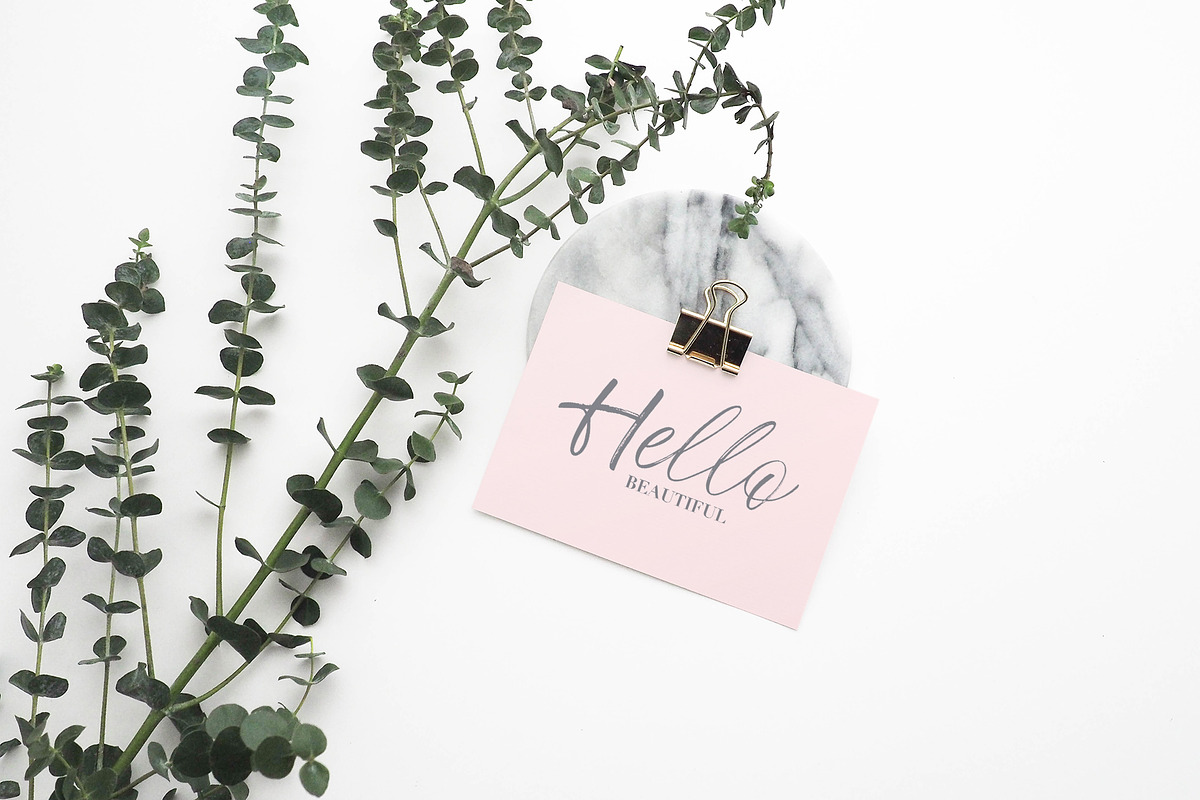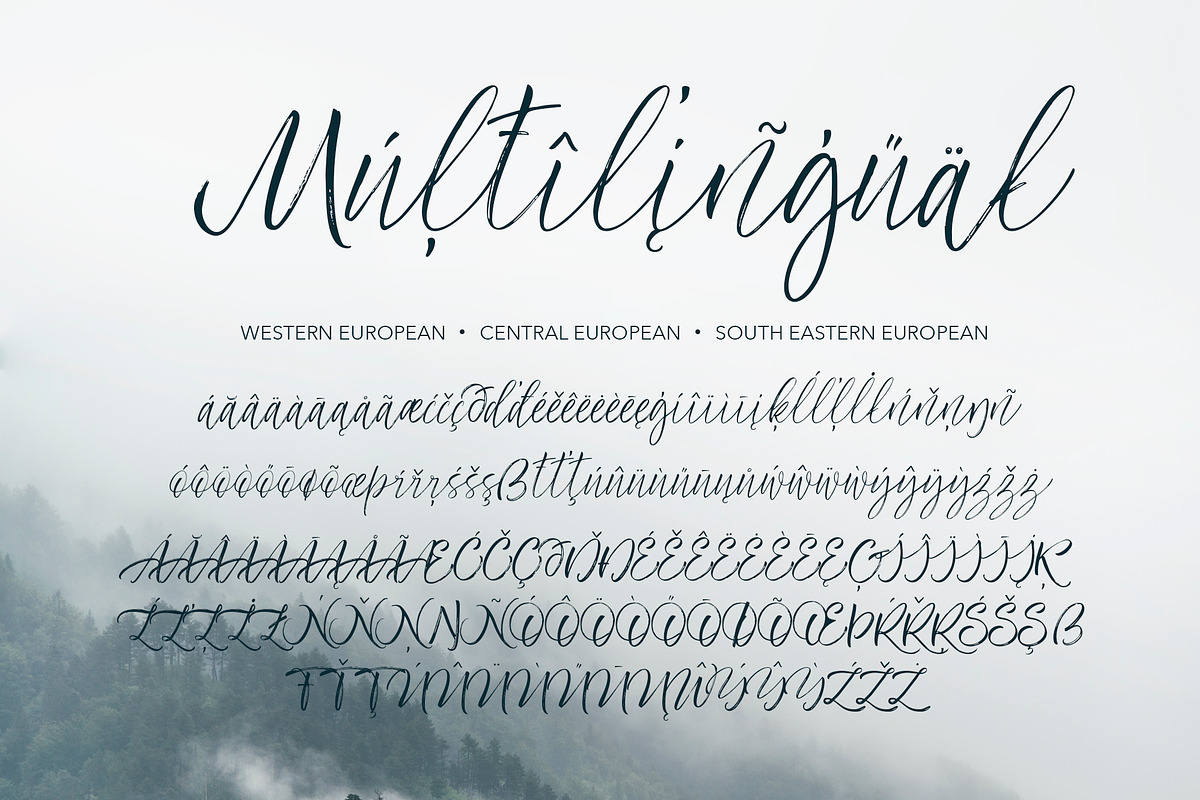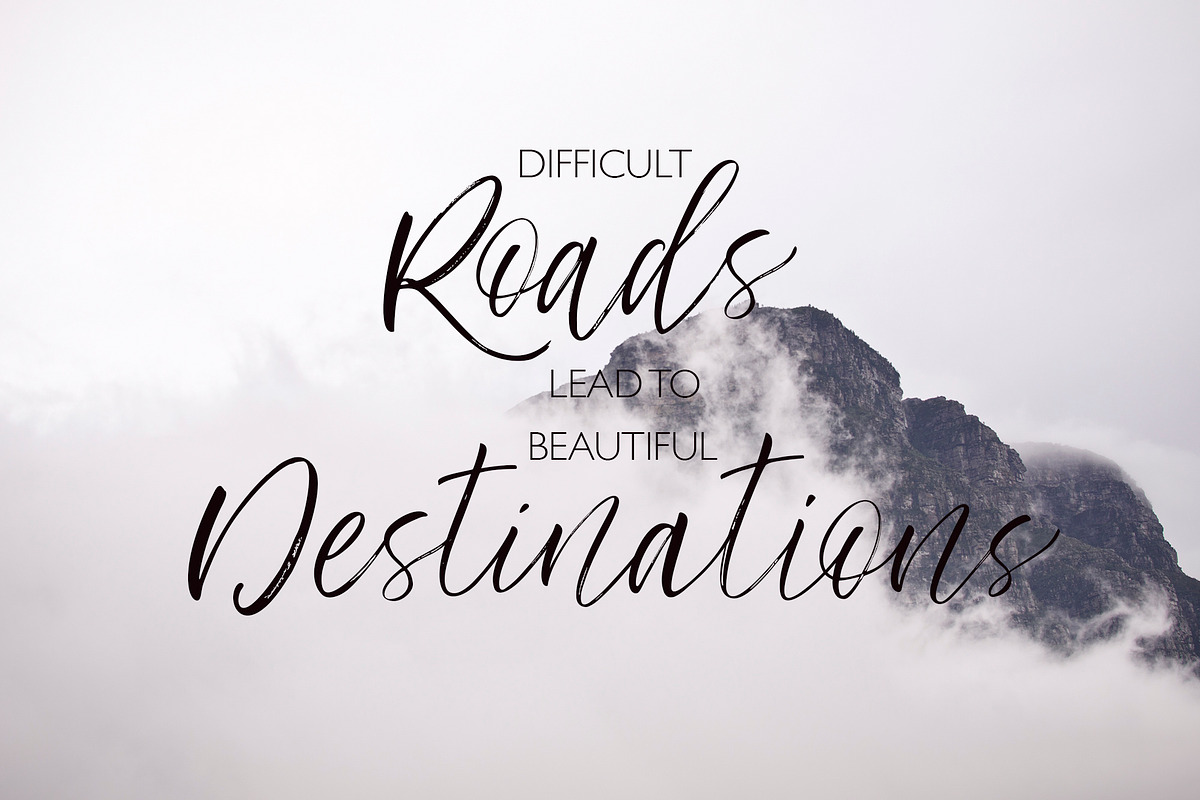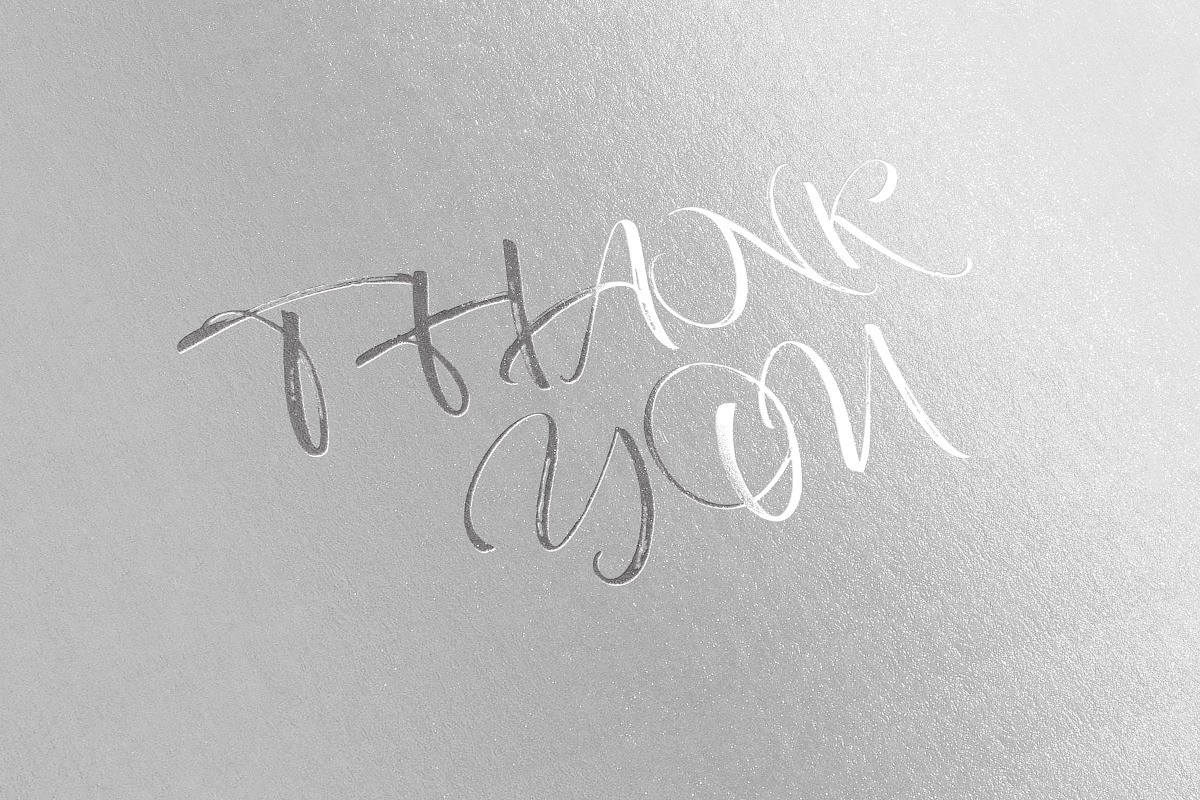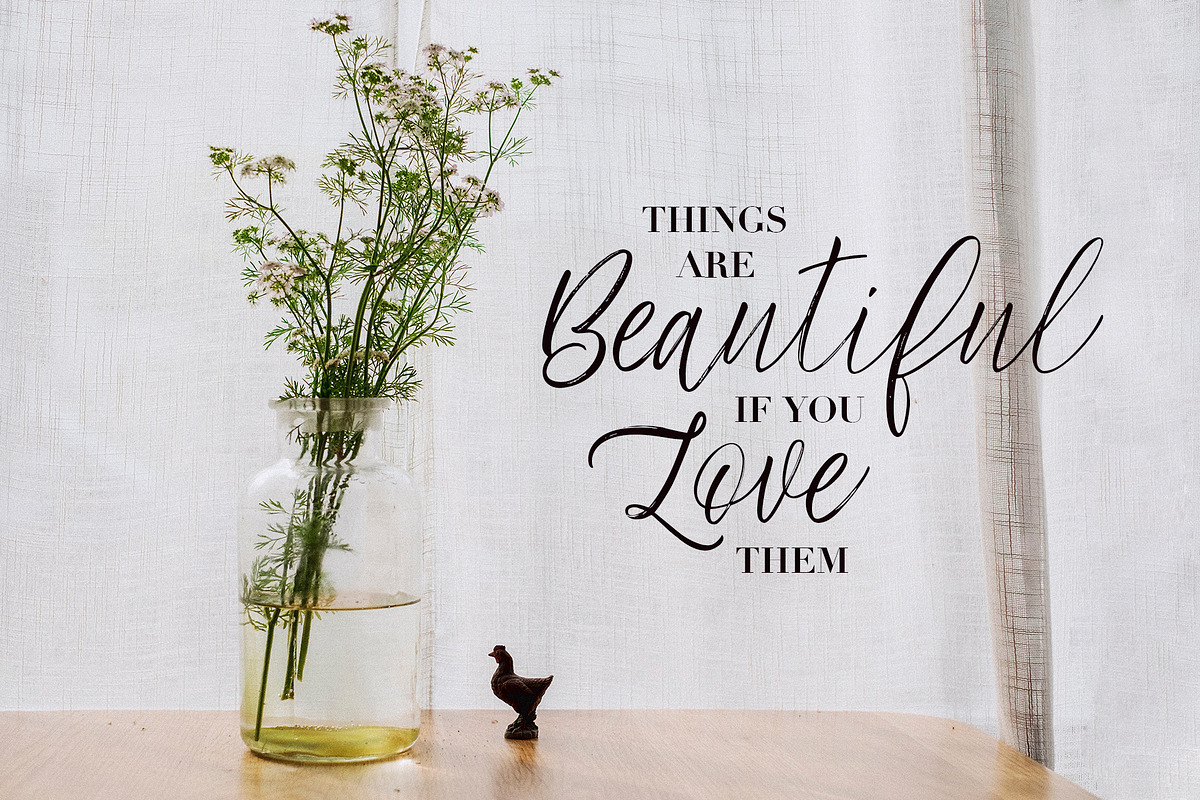
Frideswide Script
Meet new handwritten brush font - Frideswide.
Frideswide Script would be perfect for invitations, quotes, greeting cards, logos, branding, wedding and event stationery, social media overlays and much more.
Frideswide includes two sets for lowercase, and 17 ligatures (double letters) - which combined offers you a huge range of customisability and layout options. It also comes with a bonus set of 5 seamless patterns to assist your project.
Frideswide script includes uppercase and lowercase letters as well as support for Western European, Central European and South Eastern European languages.